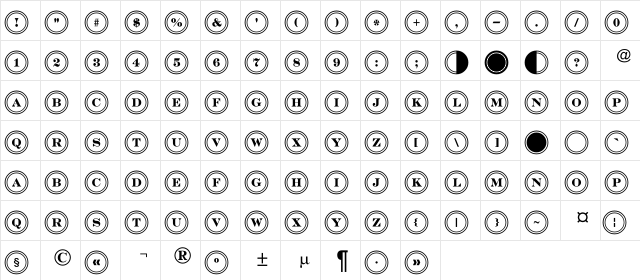
a_DiscoSerifDblOvl Regular
Design Context for a_DiscoSerifDblOvl Typeface
a_DiscoSerifDblOvl carries the refined structure of traditional serif typography, with bracketed terminals and considered proportions that communicate credibility and craft.
Pro Tip: Use a_DiscoSerifDblOvl for editorial body copy and considered headline work. Pair with a neutral sans for UI elements or captions to create a classic hierarchy.